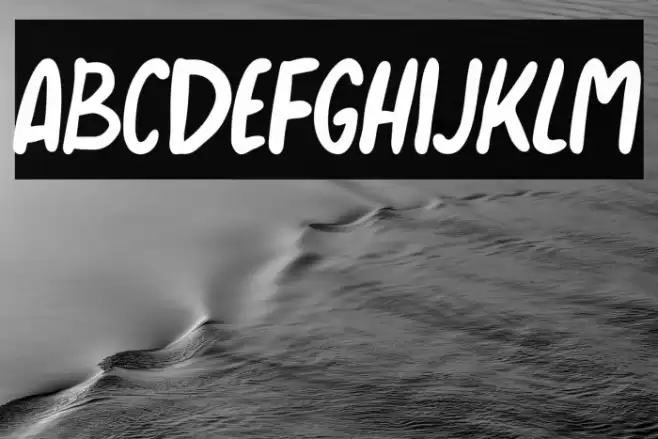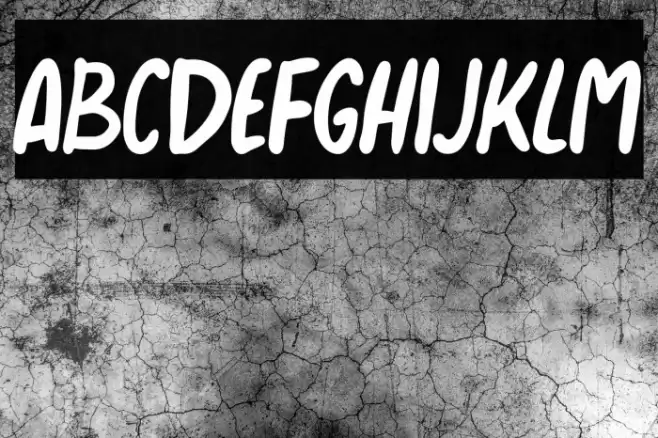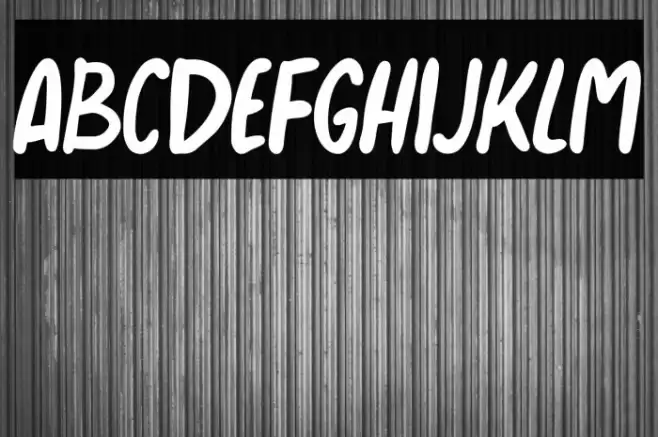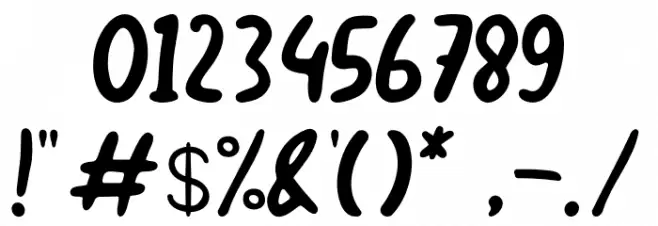
Sortelo Font
Sortelo Description
This playful and energetic font features a handwritten style with a bold and rounded appearance. The characters are slightly slanted, giving a dynamic and informal feel. The uppercase and lowercase letters maintain a consistent flow, with smooth curves and a friendly demeanor. Numbers and special characters are equally expressive, adding to the font's versatility. The overall design is approachable and lively, making it suitable for projects that require a personal touch.
A bold, handwritten font with a playful and dynamic style from Uncategorized fonts.
- Proposed Projects: Ideal for children's books, greeting cards, playful branding, and casual invitations.
- Overall Style: Playful
- Use Case: Logos, Headlines, Informal Text